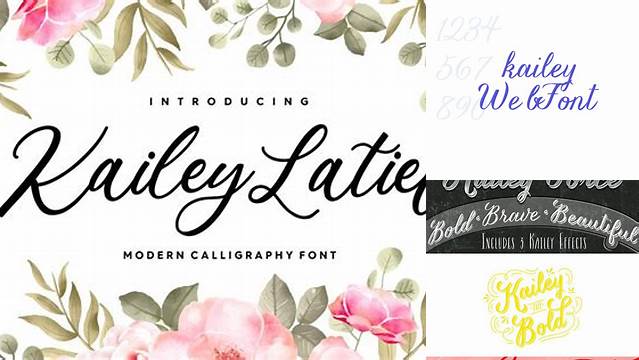
Kailey Font: Free Download & Design Guide
Are you looking to inject some serious style and personality into your designs? Well, Kailey the beautiful font might just be your new best friend. This font is a real head-turner, known for its elegant curves and modern flair. And the best part? You can snag a Kailey the beautiful font free download! I'm going to give you the lowdown on everything you need to know, from where to grab it to how to make it shine in your projects. Let's dive in!
Why Kailey Font is a Design Rockstar
First off, let's talk about why Kailey the beautiful font is such a hit. It's not just a font; it's a statement. The designers really nailed it with this one, creating something that's both sophisticated and approachable. Think about it: you need a font that can work its magic on everything from wedding invitations to website headers, and Kailey delivers. Its versatility is a huge plus. Plus, there's just something about the way the letters flow that gives your designs a polished, professional feel. It's perfect for branding, creating a unique logo that really represents your brand, or giving your social media posts an extra touch of class. It's the kind of font that grabs attention without being over the top. It's subtle but impactful. The kerning and spacing are just right, making it super easy to read, and that's always key. I mean, what's the point of a beautiful font if nobody can actually read what it says, right?
Kailey the beautiful font has this amazing ability to adapt to different styles. Whether you're going for a minimalist vibe or something more elaborate, it just fits. That's why so many designers and creatives are using it. It is an asset to any project. What's really cool is how it can elevate your work. A simple change in font can make a huge difference. Suddenly, that flyer you've been working on looks way more professional, or that Instagram post has a certain je ne sais quoi that makes people stop and take notice. It's also worth mentioning that this font often comes with different weights and styles. This means you can use it in various ways to create visual hierarchy within your design. Use the bolder weights for headlines and the lighter ones for body text. This contrast helps guide the reader's eye, making your message clearer and more engaging. This is just a small touch that can really make your design shine.
If you are thinking about using Kailey the beautiful font, think about the message you want to convey. Is it playful? Elegant? Modern? Kailey can adapt to all those needs. You can use it on your invitations. Wedding invitations are a great fit because the font has a romantic and graceful feel. It’s ideal for creating a memorable and personalized experience. Think of greeting cards to your loved ones. A personal touch in your messages is a surefire way of enhancing your relationships, and Kailey can help you with that. You can also use it on your website. It can add a touch of personality and make your site stand out. This will make your website more appealing, and will help increase engagement and attract more visitors. Think about using this font in your branding. Kailey can help in creating a consistent and professional image. It will add a recognizable aesthetic element. By the way, this can boost your brand recognition and loyalty.